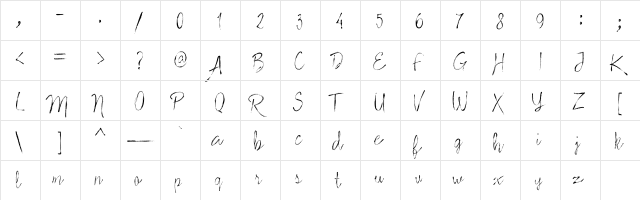
Stylish Marker Regular
| Foundry | Pedro Alexandre Vilas Boas Teixeira |
| Designer | Pedro Alexandre Teixeira |
Design Context for Stylish Marker Typeface
Stylish Marker is a composed and adaptable typeface that performs quietly and consistently across a wide range of design contexts.